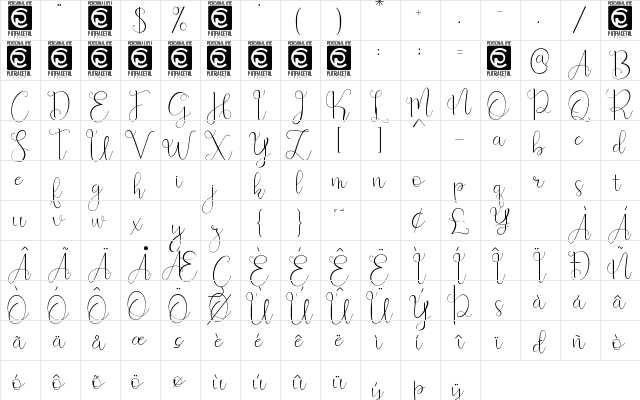
Beauty And Love ScriptFree Regular
| Foundry | Putracetol Studio |
| Designer | Putra Novembria Candra Kusuma |
Design Context for Beauty And Love ScriptFree Typeface
Beauty And Love ScriptFree flows with the natural rhythm of handwritten lettering, making it ideal for designs that call for warmth and personal expression.